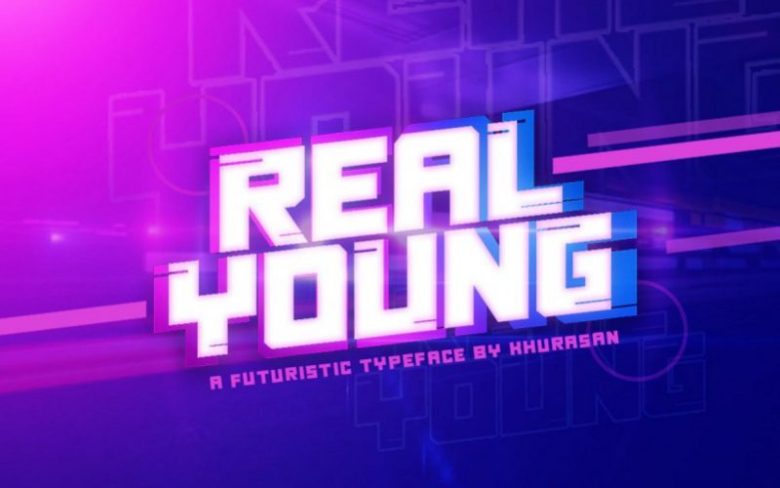
Real Young Typeface
Introducing, The Real Young font is a sans serif type of bold and italic type. Real Young font it’s perfect for , poster, logo, magazine, cover, banner, tshirt and headers, or even large-scale artwork. Real Young font support multilanguage.